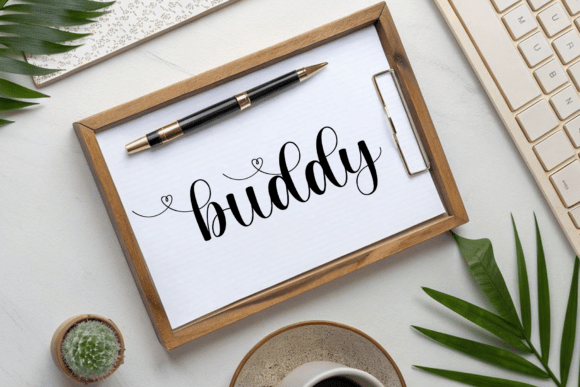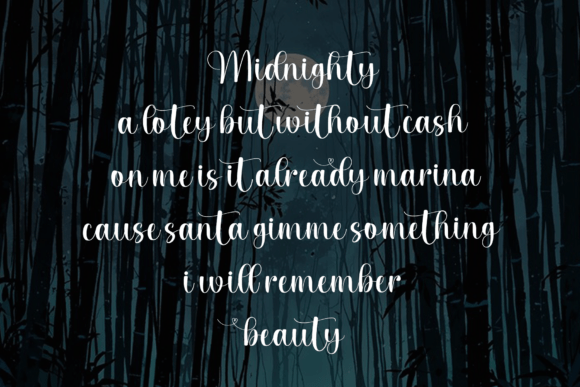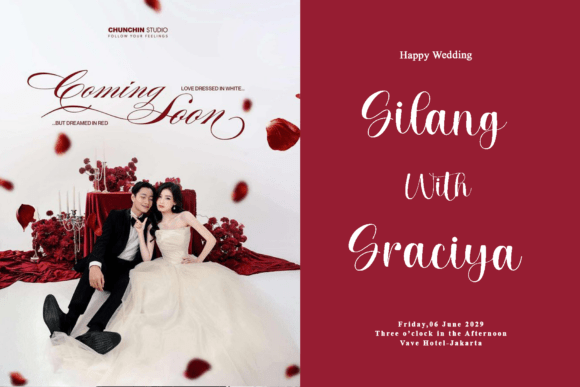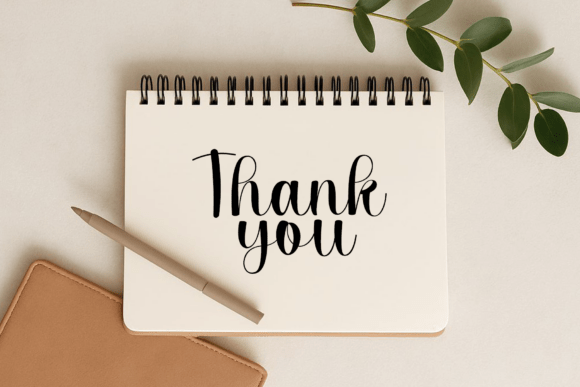
Introducing Anabele Font: A Timeless Handwritten Treasure
In the world of typography, few fonts manage to capture the essence of elegance and charm as effortlessly as Anabele Font. This lovely and timeless handwritten font has been making waves among designers and crafters alike, and for good reason. Anabele is the perfect choice for creating eye-catching logos, branding, and quotes that demand attention. In this article, we’ll dive into what makes Anabele Font so special and why it should be your go-to choice for your next design project.
The Unique Charm of Anabele Font
Anabele Font boasts a distinctive, handcrafted feel that sets it apart from more generic fonts. Each letter is meticulously designed to bring a unique and beautiful touch to your designs. This level of detail ensures that your work doesn’t just look professional; it tells a story. The fluidity and natural flow of Anabele’s strokes make it feel both modern and nostalgic, a rare combination that can elevate any design.
When it comes to creating logos and branding materials, the font you choose can make or break your design. Anabele Font shines in this area, offering a versatility that allows it to be both bold and subtle, depending on the context. Its handwritten nature gives brands a personal touch, suggesting a human element that can make a brand feel more approachable and relatable. Whether you’re designing for a boutique, a lifestyle blog, or a craft business, Anabele can help you create a logo that truly represents your brand’s personality.
Enhance Your Quotes and Typography Projects
For designers and crafters who specialize in quotes and typography projects, Anabele Font is a treasure trove of creative possibilities. The font’s unique character ensures that each quote or phrase you design stands out, offering a refreshing alternative to more commonly used fonts. The beauty of Anabele lies in its ability to convey emotion and add a decorative touch to your work, making it perfect for projects that require a bit of flair.
Why Designers and Crafters Love Anabele Font
So, what is it about Anabele Font that designers and crafters love so much? The answer lies in its timeless appeal and versatility. Here are a few reasons why Anabele has become a favorite among creatives:
- Elegance and Charm: Anabele brings an undeniable elegance and charm to any design, making it perfect for projects that require a touch of sophistication.
- Versatility: From logos and branding to quotes and typography projects, Anabele’s versatility knows no bounds.
- Unique Touch: The font’s unique and beautiful touch ensures that your designs stand out from the crowd.
- Easy to Read: Despite its decorative nature, Anabele remains easy to read, making it practical for a wide range of applications.
How to Make the Most of Anabele Font
To truly make the most of Anabele Font, consider the following tips:
- Pair it Wisely: Anabele pairs well with clean, sans-serif fonts for a balanced look or with other script fonts for a more dramatic effect.
- Experiment with Colors: Don’t be afraid to experiment with different colors. Anabele looks stunning in both bright and muted tones.
- Play with Sizes: Varying the size of your text can add depth and interest to your designs.
- Emphasize Details: Take advantage of Anabele’s unique details by emphasizing certain words or letters.
Anabele Font is more than just a font; it’s a tool for creativity and self-expression. Its timeless elegance, versatility, and unique charm make it an invaluable asset for designers and crafters looking to elevate their work. Whether you’re creating logos, branding materials, quotes, or typography projects, Anabele is sure to bring your designs to life. So why settle for ordinary when you can create something truly extraordinary with Anabele Font?